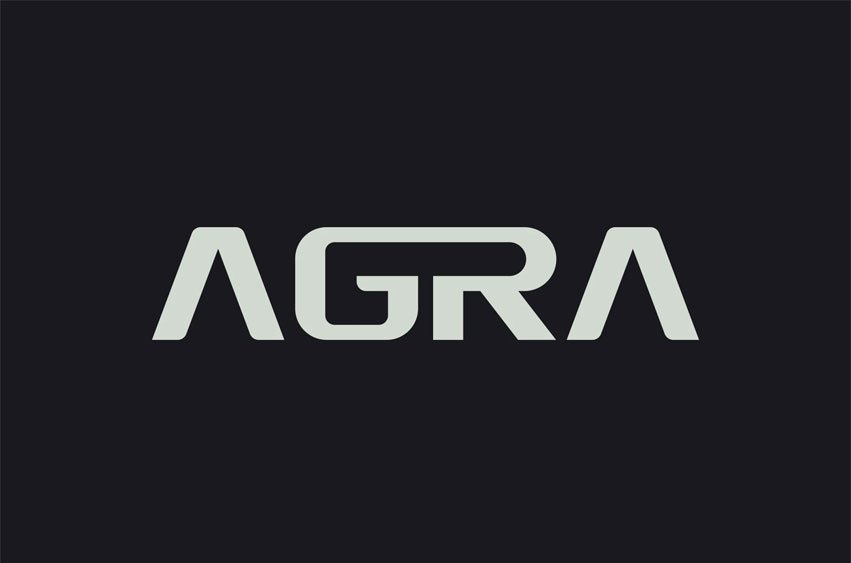
Agra Font
Agra Font Modern Font is a bold and authentic display font. The font is suitable for any branding project like logo, esport, and many more.
outstanding in a wide range of contexts.